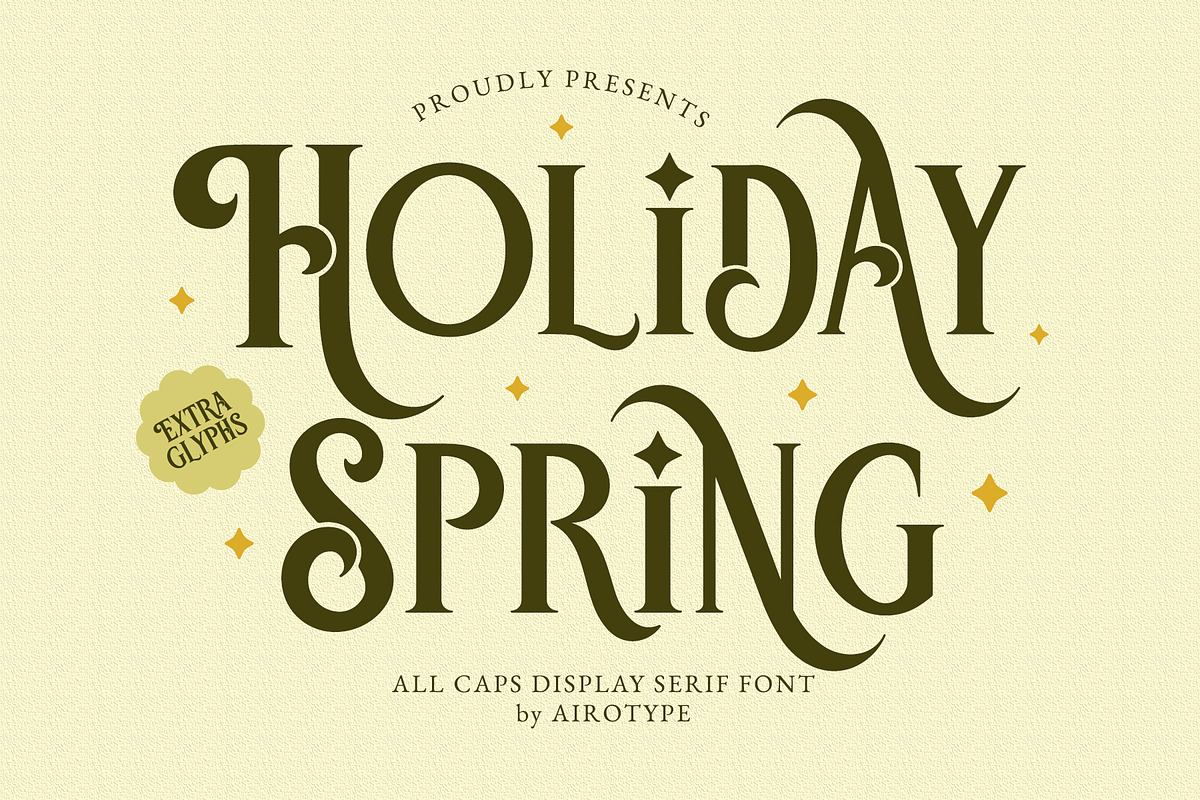
Holiday Spring – Display Serif Font Free Download is a cheerful and elegant typeface that captures the light, fresh spirit of the spring season. With its decorative serifs, smooth curves, and high-contrast strokes, this font is perfect for seasonal branding, Easter cards, event posters, boutique packaging, and social media content that needs a touch of sophistication and joy.
Its stylish flair makes it ideal for both headline use and statement text where you want to grab attention without losing elegance. Whether you're working on floral themes, spring sales, or festive invites, this font brings warmth and charm to every letter. Feel free to test it for personal use, but a commercial license is required for any professional projects.
Brighten up your designs with Holiday Spring – Display Serif Font Free Download and let your creativity bloom with a font that’s as fresh and uplifting as the season itself.